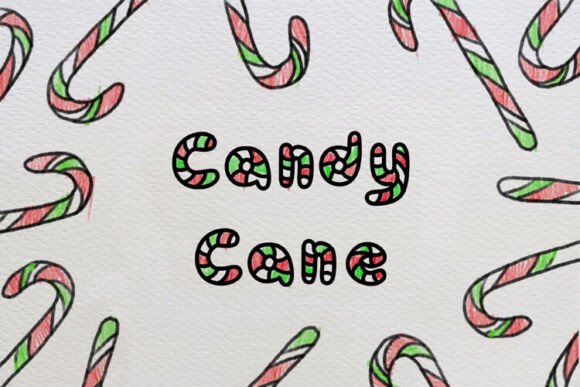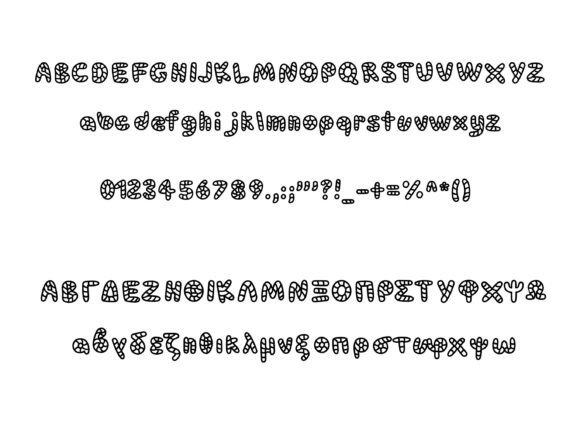
Candy Cane Font: A Fun and Festive Outline Font for Christmas
Are you looking for a unique and playful font to add some holiday cheer to your designs? Look no further than the Candy Cane Font, a funny and Christmas-inspired outline font that’s perfect for crafters, designers, and anyone looking to add some festive flair to their projects.
Inspired by the classic candy cane, this font is based on the original “Candy Cane” font, but with a twist – it’s an outline font, designed specifically for coloring and enjoyment by kids and adults alike. With its bold lines and playful design, the Candy Cane Font is sure to bring a smile to anyone’s face.
What is an Outline Font?
For those who may be new to typography, an outline font is a type of font that features only the outline of the letters, without any fill colors. This allows users to add their own colors and designs, making it perfect for crafters, teachers, and parents looking for a fun and interactive way to engage kids in creative activities.
Outline fonts are also popular among designers, who appreciate the flexibility and versatility they offer. By using an outline font, designers can create custom designs and illustrations that can be tailored to specific projects and themes.
Features of the Candy Cane Font
The Candy Cane Font is a unique and festive outline font that features:
- Bold, playful lines inspired by the classic candy cane
- A fun and festive Christmas theme
- Outline design, perfect for coloring and customization
Uses for the Candy Cane Font
The Candy Cane Font is a versatile font that can be used for a range of projects and applications, including:
- Christmas cards and invitations
- Holiday-themed crafts and activities for kids
- Custom illustrations and designs for websites and social media
- Festive signage and displays for businesses and events
The Candy Cane Font offers a range of benefits for designers and crafters, including:
- A unique and festive font that’s sure to stand out
- Easy customization and color options
- A fun and playful way to engage kids in creative activities
Tips for Using the Candy Cane Font
Here are a few tips for using the Candy Cane Font in your designs:
- Experiment with different colors and patterns to add a personal touch
- Use the font in combination with other festive fonts and graphics for a unique look
- Consider using the font for headings and titles, or as a decorative element
| Font Name | Candy Cane Font |
| Author | Joanna Vu |
The Candy Cane Font is a fun and festive outline font that’s perfect for designers, crafters, and anyone looking to add some holiday cheer to their projects. With its bold lines, playful design, and compatibility with a range of design software and applications, this font is sure to be a hit this holiday season. So why not give it a try and see what creative and festive designs you can come up with?